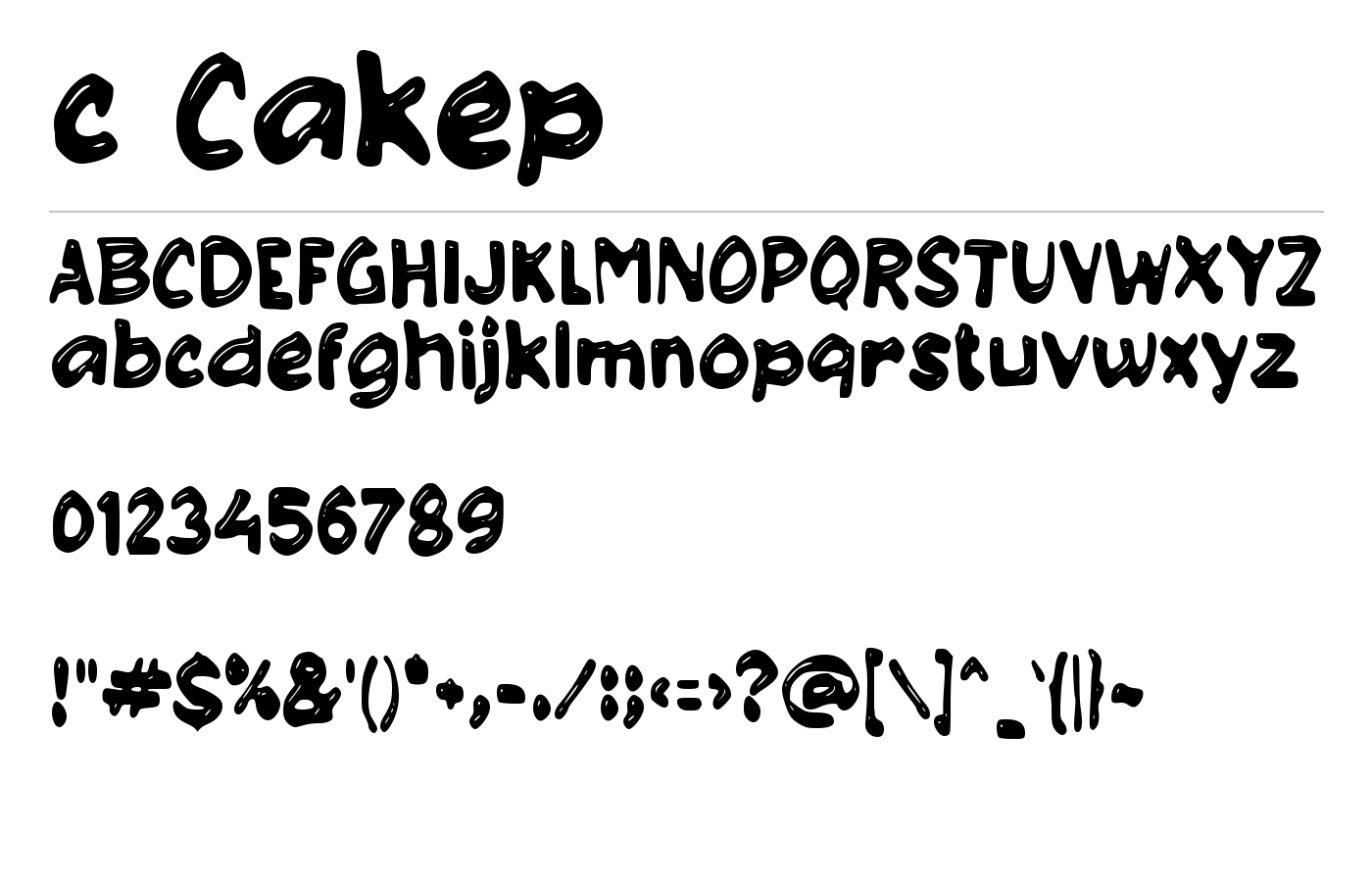
c Cakep is a playful, bold handwritten font with a chunky, informal feel. Its irregular shapes and thick strokes give it a fun, approachable personality, making it ideal for creative projects, kids' designs, and casual branding. This font works well in headlines and packaging where a lively, friendly tone is desired.
c Cakep Font
About c Cakep Font